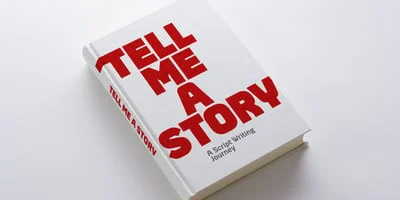
Absentia Sans Font
Absentia Sans Font is perfect for minimalist website designs, contemporary magazine layouts, clean corporate branding, modern architectural signage, editorial publications, user interface typography, Scandinavian-style packaging, and sophisticated digital applications. This refined typeface excels in modern design environments, professional communications, and any project requiring understated elegance that prioritizes content clarity and visual hierarchy.
What makes Absentia Sans Font exciting is its masterful balance of simplicity and sophistication that creates powerful visual impact through restraint and precision rather than ornamentation. The font features clean, unadorned letterforms with carefully optimized spacing and proportions that ensure exceptional readability while conveying modern professionalism, making it ideal for brands seeking to communicate clarity and contemporary thinking. Its minimalist approach maximizes legibility across all media formats.
Absentia Sans Font family includes multiple weights and styles: Regular, Bold, Light, Medium, Italic variations, and ultra-light versions for delicate applications. Each family member maintains the distinctive clean character while offering comprehensive typography solutions for complex design systems, from subtle body text to impactful headlines that command attention through confident simplicity.
Whether you're designing contemporary brand identities or creating modern digital interfaces, Absentia Sans Font provides the perfect typography solution for minimalist design needs. This font transforms ordinary text into refined visual communication that emphasizes content over decoration. Modern designers and forward-thinking brands choose this typeface for its ability to convey contemporary sophistication through precisely crafted letterforms that celebrate functional beauty.